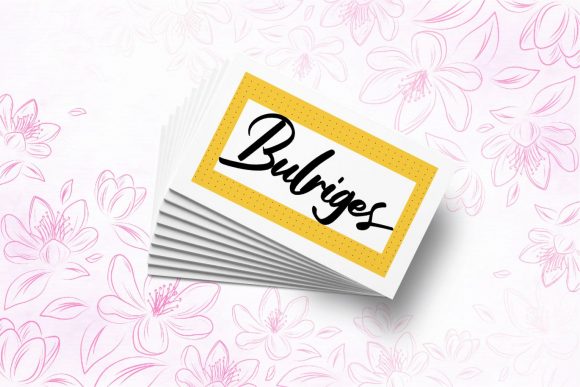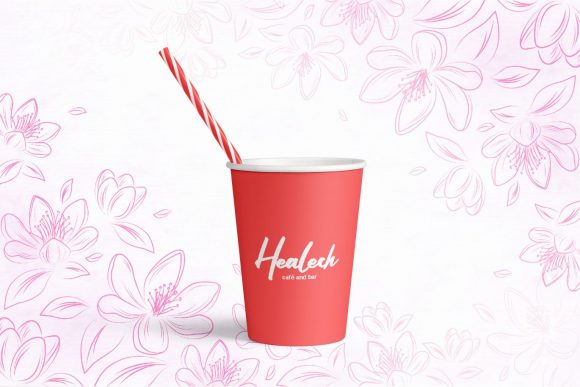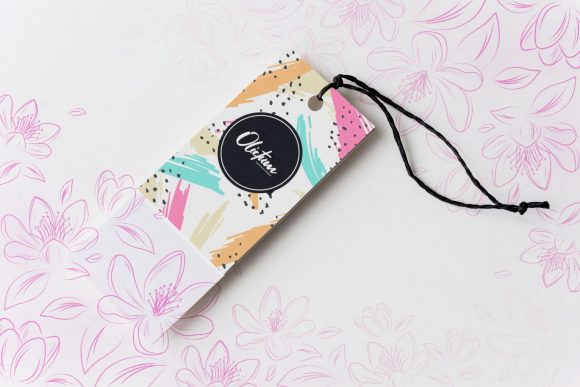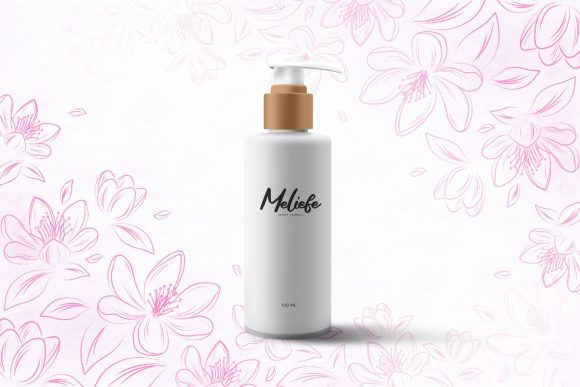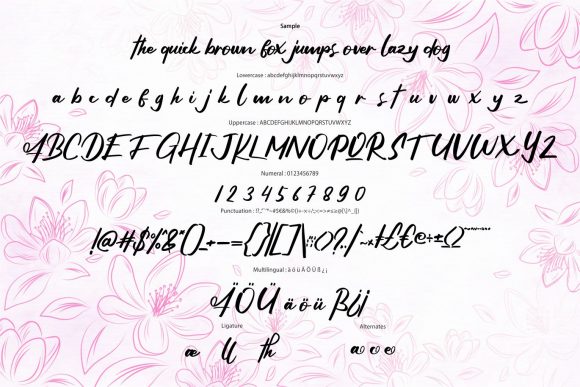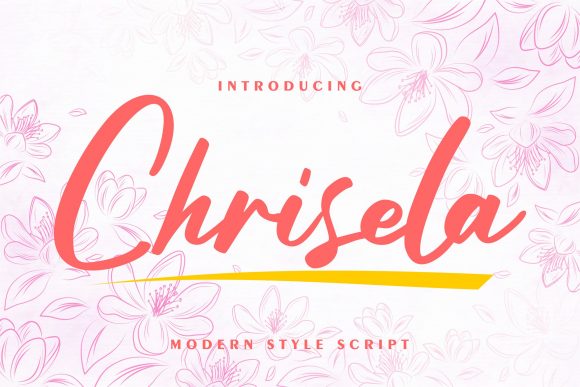
Discover the Charm of Chrisela Font: Elevate Your Designs with its Unique Handwritten Style
In the world of design, fonts play a crucial role in conveying messages, evoking emotions, and creating lasting impressions. For designers, crafters, and digital artists, finding the perfect font can be a game-changer. If you’re on the hunt for a unique and versatile handwritten font, look no further than Chrisela Font. In this article, we’ll dive into the features, benefits, and uses of Chrisela, and explore how it can elevate your designs to the next level.
What is Chrisela Font?
Chrisela is a one-of-a-kind handwritten font that has captured the hearts of designers and crafters alike. Its unique style is characterized by flowing lines, subtle imperfections, and a touch of elegance. Whether you’re working on a digital project, crafting a handmade card, or creating a presentation, Chrisela Font is the perfect companion.
The Versatility of Chrisela Font
One of the standout features of Chrisela Font is its incredible versatility. This font can be used in a wide range of applications, from:
• Crafting: Add a personal touch to your handmade cards, scrapbook pages, and journal entries.
• Digital Designing: Use Chrisela Font in your social media graphics, blog posts, and website designs.
• Presentations: Elevate your presentations with a font that exudes professionalism and style.
• Greeting Card Making: Create stunning greeting cards for special occasions.
Why Fall in Love with Chrisela Font?
So, what makes Chrisela Font so special? Here are just a few reasons why designers and crafters are falling in love with this unique handwritten font:
• Unique Style: Chrisela Font boasts a distinctive style that sets it apart from other fonts.
• Easy to Read: Despite its handwritten nature, Chrisela Font is surprisingly easy to read, making it perfect for body text and captions.
• Highly Versatile: Use Chrisela Font in a variety of contexts, from formal to informal, and watch it adapt seamlessly.
• Emotional Connection: Chrisela Font has a way of evoking emotions and creating a personal connection with your audience.
Tips for Using Chrisela Font
To get the most out of Chrisela Font, here are some expert tips:
• Pair with Other Fonts: Combine Chrisela Font with other fonts to create stunning contrast and visual interest.
• Experiment with Colors: Try Chrisela Font with different colors to add depth and personality to your designs.
• Play with Sizes: Use Chrisela Font in various sizes to create hierarchy and emphasis in your designs.
In conclusion, Chrisela Font is a game-changer for designers, crafters, and digital artists. Its unique handwritten style, versatility, and emotional resonance make it the perfect addition to any design project. Whether you’re looking to create stunning digital designs, handmade crafts, or professional presentations, Chrisela Font is sure to impress. So why wait? Fall in love with Chrisela Font today and elevate your designs to new heights!
• Chrisela Font is a unique handwritten font perfect for various design applications.
• Its versatility makes it suitable for crafting, digital designing, presentations, and greeting card making.
• Chrisela Font boasts a distinctive style, ease of readability, and high versatility.